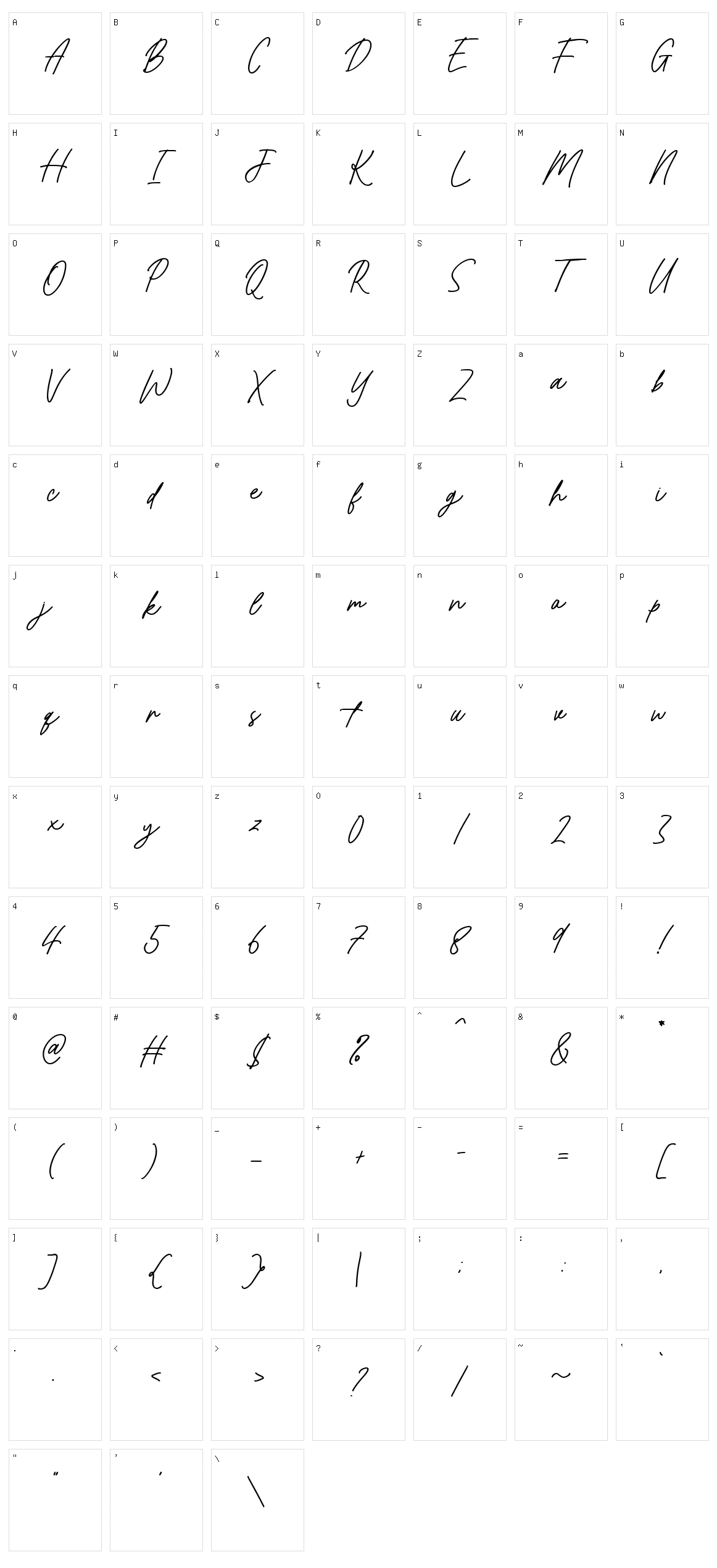
The free font Bromrose Sands is carefully designed by Rillatype, showcasing a thoughtful balance of creativity and usability and falls under the Script font style. When you download the ZIP file, it contains only 3814.74 KB of font files, making it lightweight and quick to download. Please review the license details below to understand permitted usage and distribution rights. If license information is not available, we recommend using this font for personal projects only or contacting the author directly for commercial usage permissions.